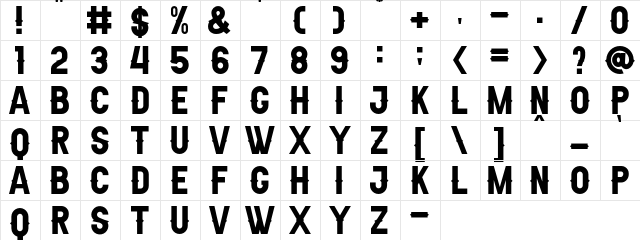
Aldivaro Demo Regular
Design Context for Aldivaro Demo Typeface
Aldivaro Demo is a composed and adaptable typeface that performs quietly and consistently across a wide range of design contexts.
Pro Tip: Use Aldivaro Demo in both headline and body roles to test its range before committing to a single application.